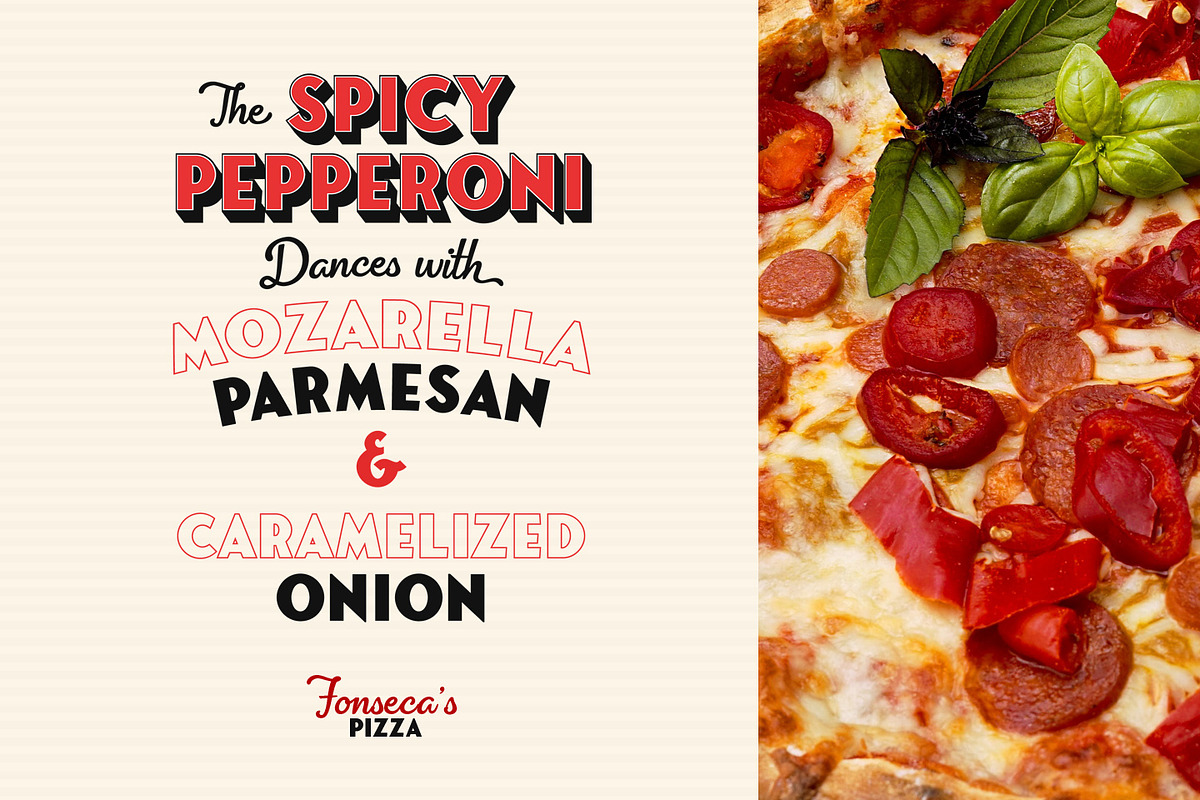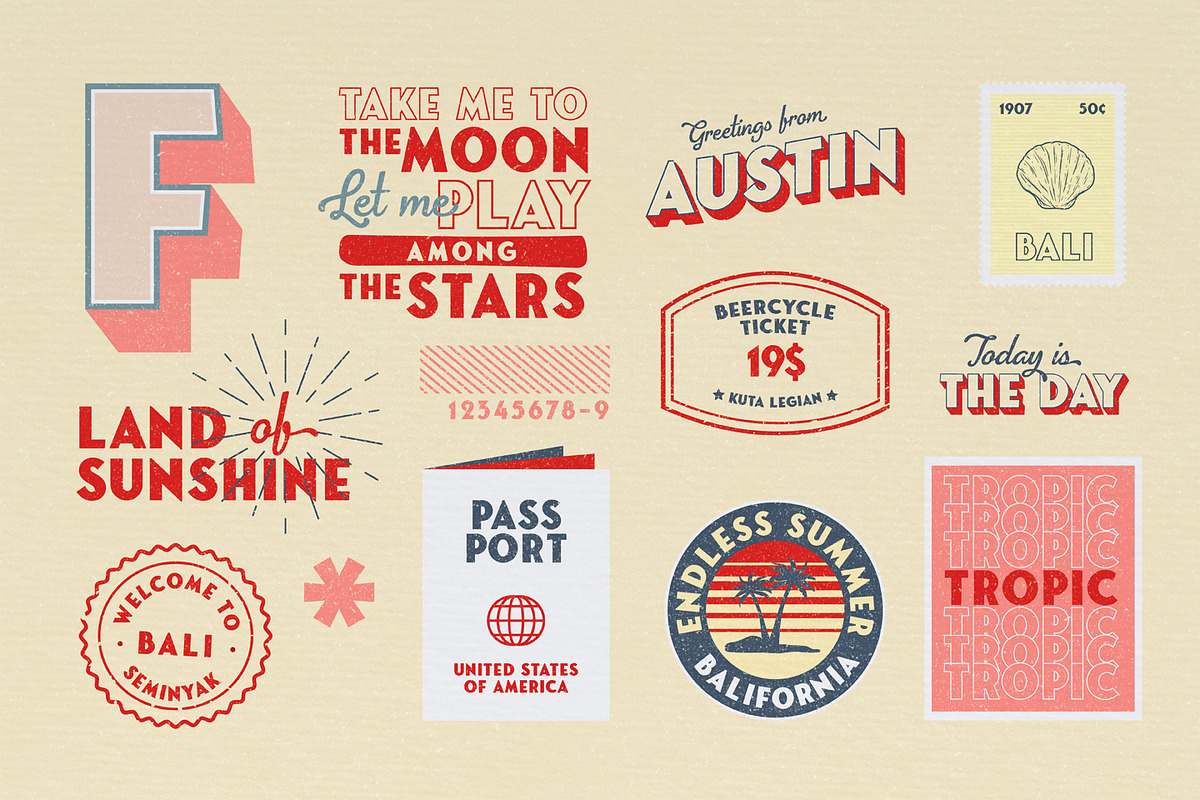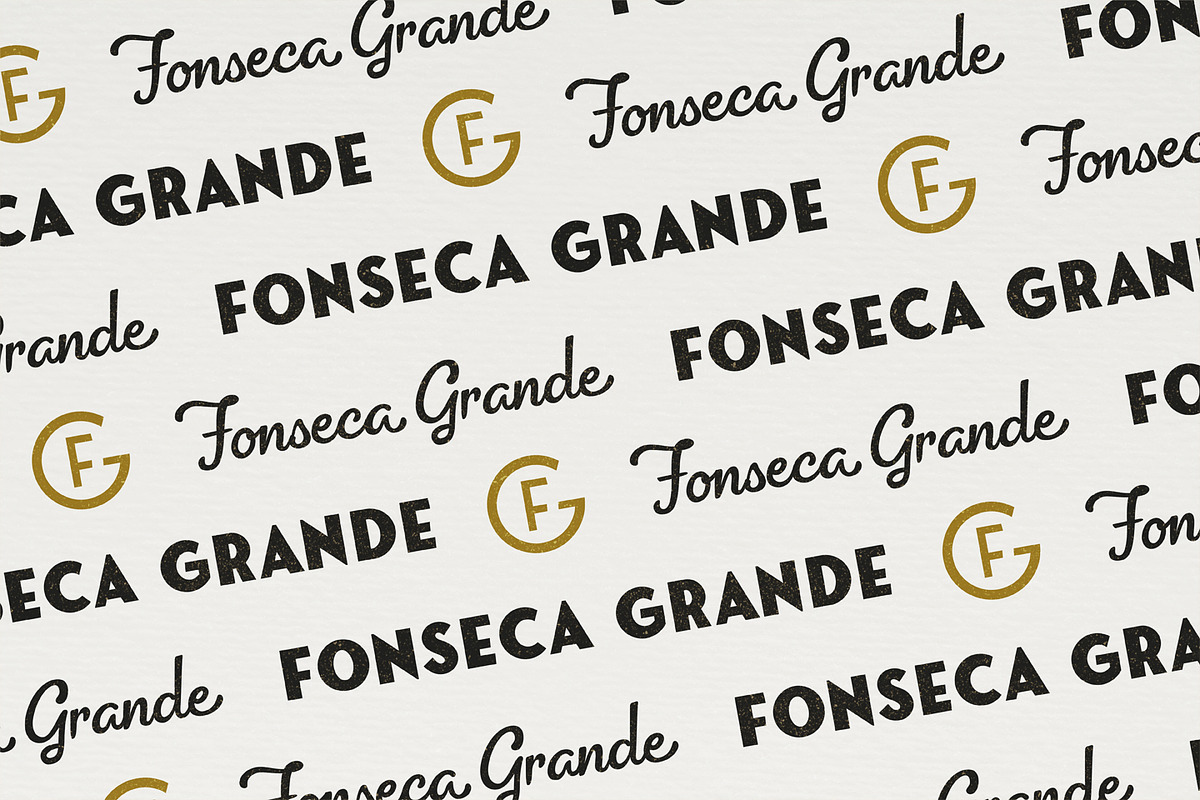
Fonseca Grande is a sans-serif font duo that combines calligraphic elements with a classic style, perfect for retro-inspired designs. Classic city postcards would come in a fresh new look with this font combination. Layered bold retro sans serif complemented with a handwritten script perfectly paired, bring back your memories of thousands of cities you have explored. But not limited to postcards, you can use this font family for any project; branding, posters, packaging, restaurant menus, stamps, badges, and signage, you guys are the experts in this field!